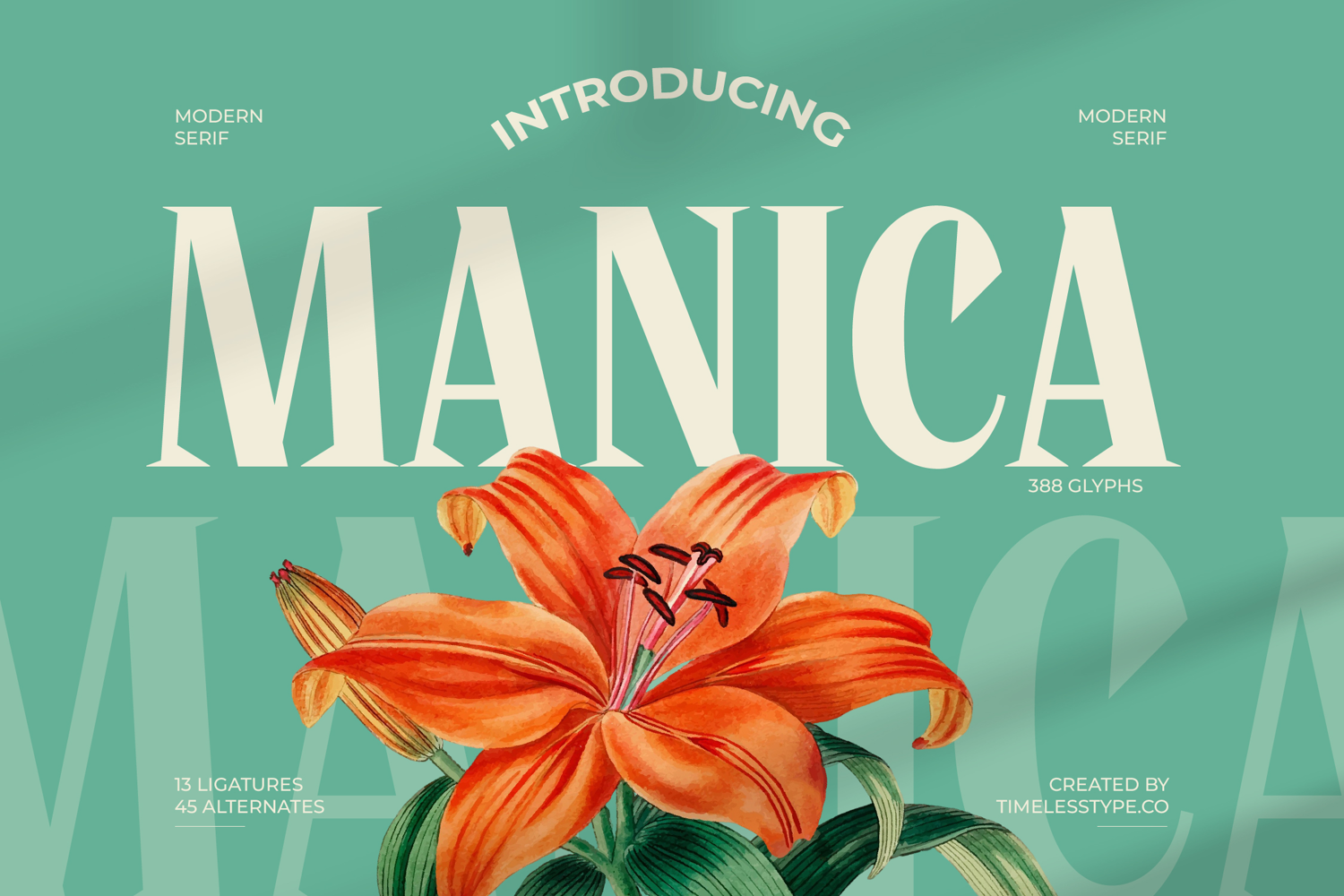
Manica - Modern Serif Font
Manica Italic
Manica
Manica - Modern Serif Font
Unleash modern elegance with Font Manica - Modern Serif Font Serif Display. This captivating typeface merges classic serif sophistication with a contemporary edge, making it an ideal choice for visionary designers. Its high-contrast letterforms and meticulously crafted details radiate an undeniable sense of luxury and refinement, ensuring your visual communications achieve maximum impact and memorability. Embrace a font that commands attention with effortless grace.
Discover boundless creative potential with its comprehensive character arsenal. Featuring 388 glyphs, 13 ligatures, and 45 alternates, Font Manica - Modern Serif Font Serif Display offers exceptional typographic versatility. Crucially, with its extensive multilingual support, Font Manica - Modern Serif Font Serif Display adapts seamlessly across global markets, making it incredibly versatile for international projects. This adaptability ensures your message resonates worldwide.